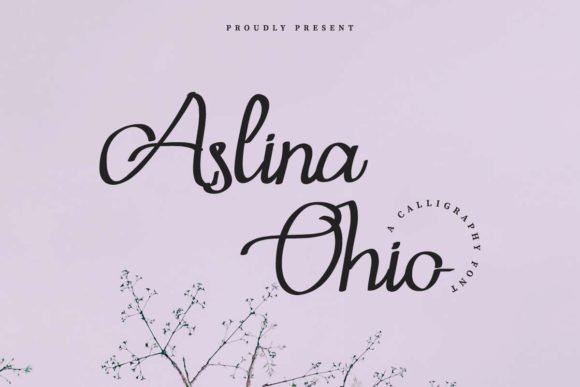
The Perfect Touch: Unleashing Your Creativity with Aslina Ohio Font
Remember that moment when a spark of inspiration hits you, and you can’t wait to bring your creative idea to life? For many of us, it’s the perfect moment to let our imagination run wild and experiment with new designs. But, have you ever felt like your project is missing that special something, that delicate touch that sets it apart from the rest?
Enter Aslina Ohio Font, a beautiful, elegant, and flowing handwritten font that can breathe new life into your designs. With its well-balanced characters, this font is the perfect addition to any creative project, from branding and marketing materials to digital art and more.
Whether you’re a seasoned designer or just starting out, Aslina Ohio Font is a valuable tool to have in your arsenal. Its versatility and timeless charm make it an ideal choice for designers looking to add a touch of sophistication and elegance to their work.
Aslina Ohio Font Key Features
- Unique Characteristics: Aslina Ohio Font features a unique blend of modern and vintage elements, with a focus on elegant lines and subtle texture.
- Font Style: Aslina Ohio Font is available in a single weight, with a range of font styles including Regular, Italic, Bold, and Bold Italic.
Aslina Ohio Font Review
I’ve had the chance to work with the Aslina Ohio font, and I must say it’s a beautiful addition to any design project. ✨ The font’s unique blend of modern and vintage elements makes it perfect for creating a nostalgic feel without looking too dated.
- ✨ Elegant and sophisticated look: The font’s refined lines and subtle flourishes give it a high-end feel that’s perfect for luxury brands or premium products.
- ✨ Versatile: Aslina Ohio works well in a variety of contexts, from body text to headings, and can be used in both digital and print designs.
- ✨ Unique character set: The font’s character set is well-designed and includes a range of special characters and accents.
- ⚠️ Limited language support: While the font includes a range of special characters and accents, it may not support certain languages or scripts.
- ⚠️ Not ideal for highly technical text: The font’s elegant lines may make it difficult to read highly technical text, such as code or complex instructions.
Overall, I think Aslina Ohio is a great addition to any designer’s toolkit. While it may not be perfect for every project, its unique look and feel make it a great choice for creating a sophisticated and nostalgic aesthetic.
The Aslina Ohio Font is suitable for various design projects, including:
– Branding and logo design
– Event promotions and posters
– Social media graphics and advertising
– Use the font in combination with other elegant and sophisticated fonts
– Experiment with different font sizes and colors to create visual interest
– Use the font to add a touch of vintage or retro flair to your designs
Alternatives to Aslina Ohio Font
Playfair Display is an elegant and luxurious serif font that is perfect for creating high-end designs. It is ideal for use in titles, headings, and other areas where a touch of sophistication is desired. Playfair Display is similar to Aslina Ohio Font in its classic and sophisticated feel, but it has a more ornate and luxurious appearance.
Great Vibes is a beautiful and elegant script font that is perfect for creating a sense of romance and sophistication. It is ideal for use in titles, headings, and other areas where a touch of elegance is desired. Great Vibes is similar to Aslina Ohio Font in its classic and sophisticated feel, but it has a more fluid and cursive appearance.